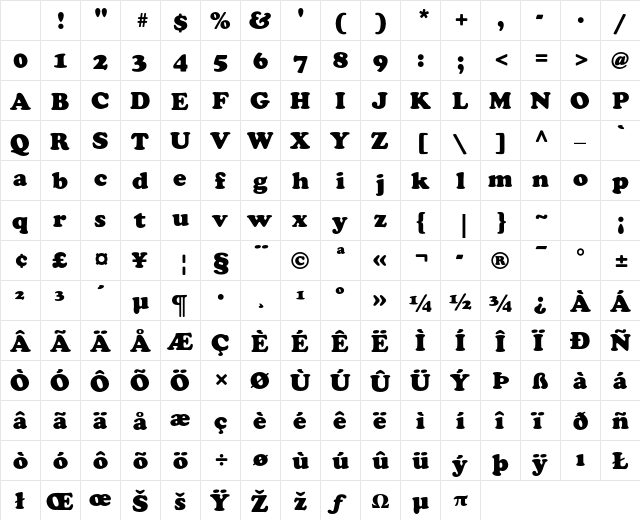
Complete Cooper Std Black Regular glyph index. Displaying only characters natively supported by Cooper Std Black Regular font.
Cooper Std Black is a composed and adaptable typeface that performs quietly and consistently across a wide range of design contexts.